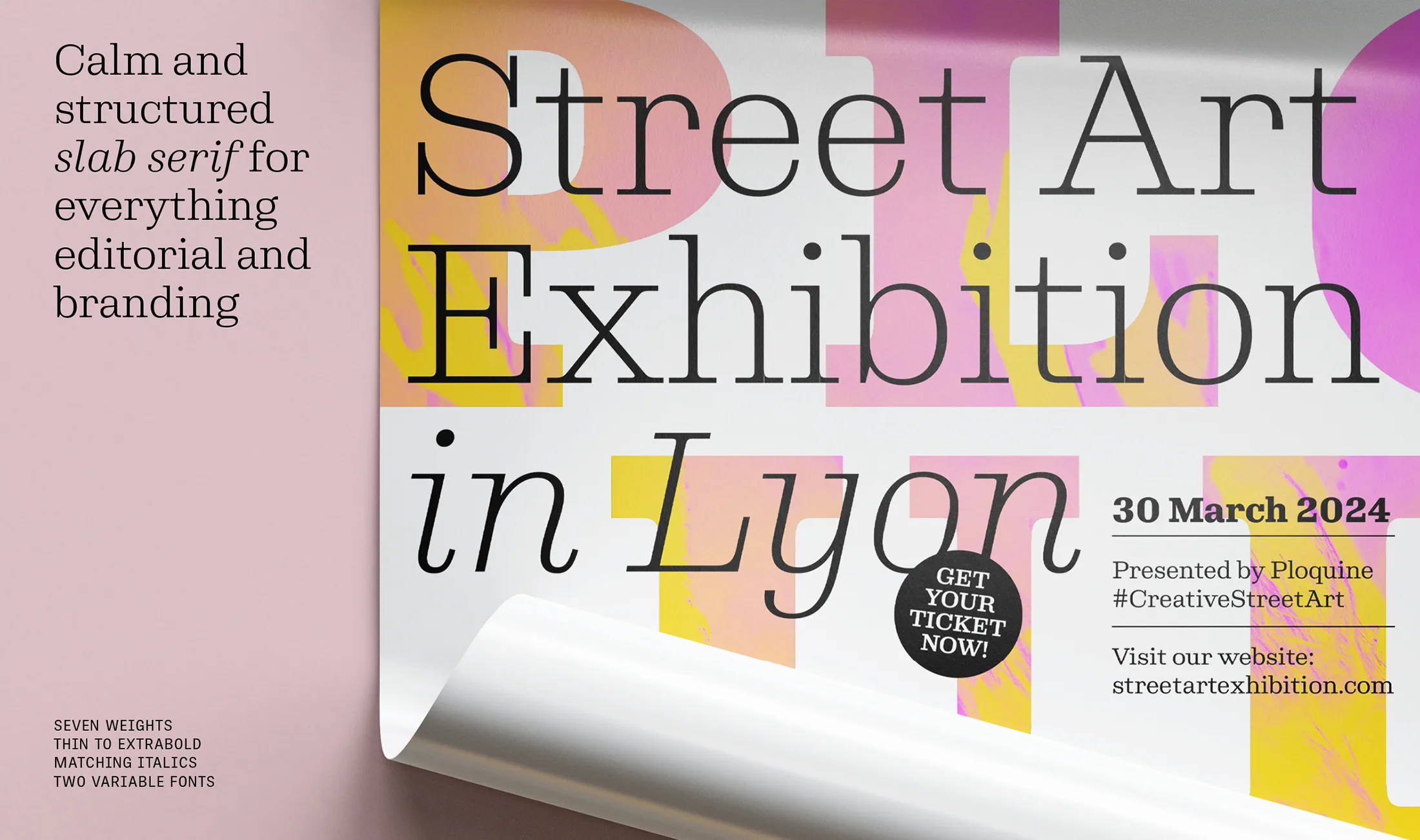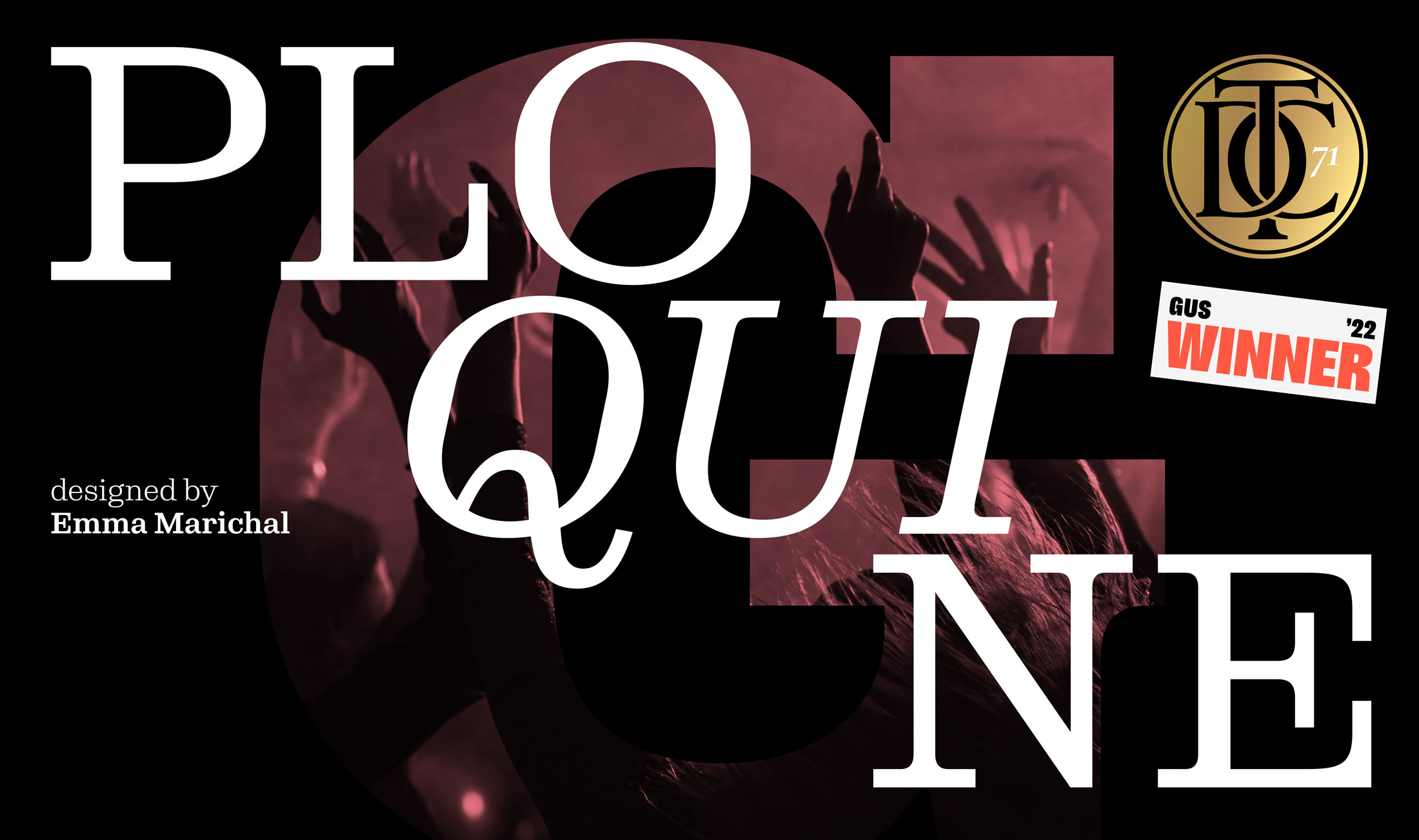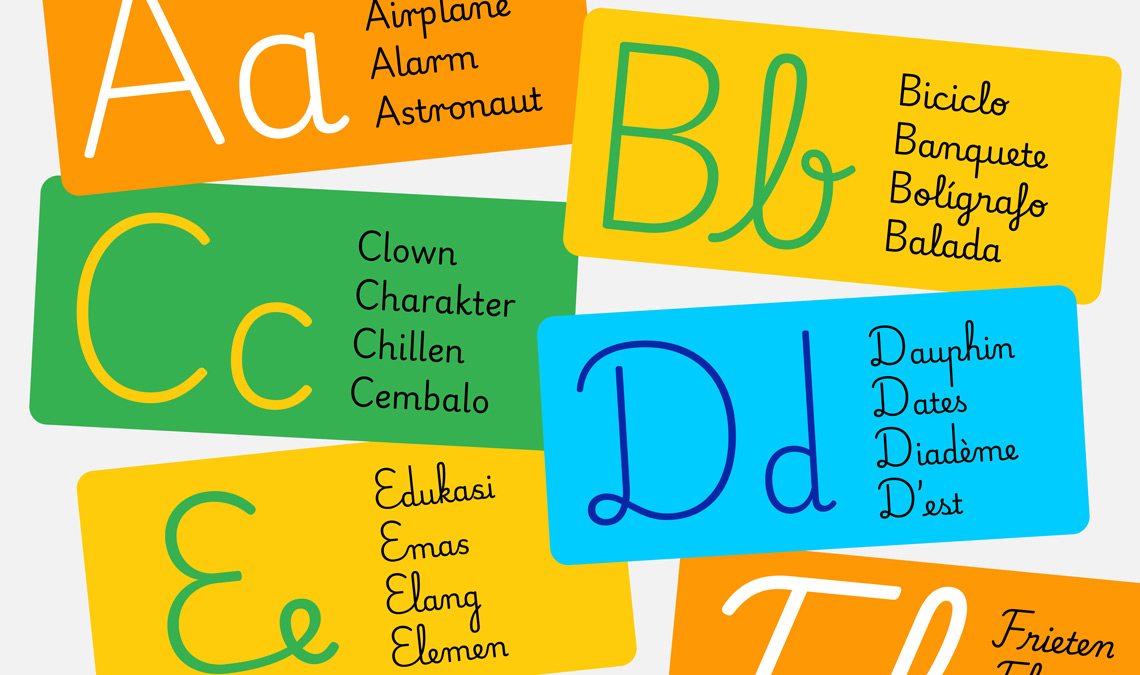
Playwrite
We are delighted to announce that Playwrite, our type family and type engine for handwriting instruction, has been selected as the winner of the 2025 Type Directors Club award. A complete list of the 2025 winners can be found on the TDC website.
Playwrite is one of the products of our Primarium project, which conducted more than two years of research into how handwriting is taught in more than 40 countries around the world.Each regional font in the Playwrite family is available as a free download at the Google Fonts website.
Ploquine
Not only that, but Emma Marichal’s Ploquine was also selected for a TDC award. Designed from wood types for editorial use, Ploquine can be aggressive or delicate. Its 14 well-balanced styles are suitable for paragraphs where its details improve the overall text colour, and they become a distinctive branding feature when set at large sizes.